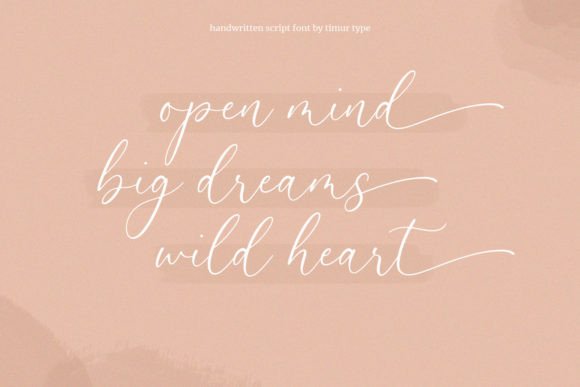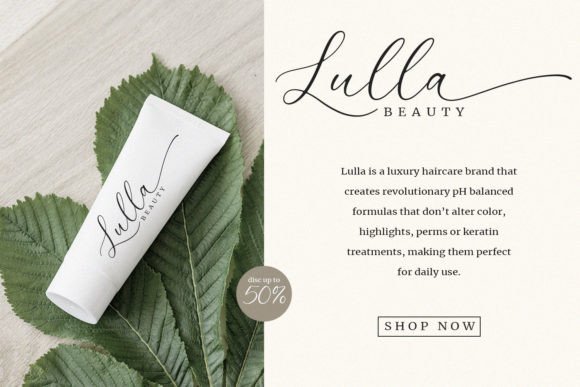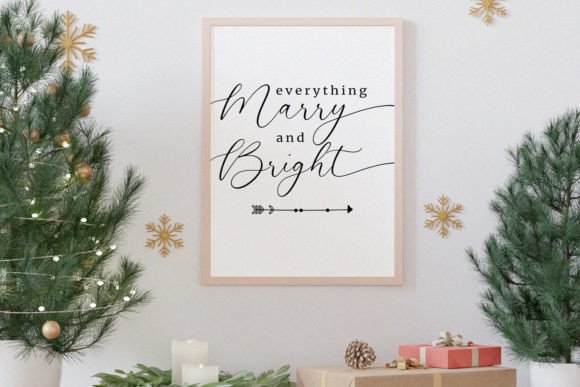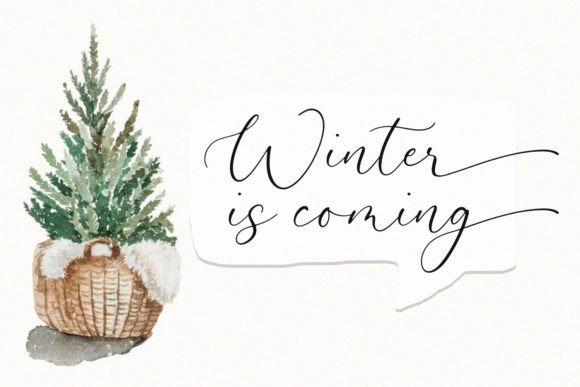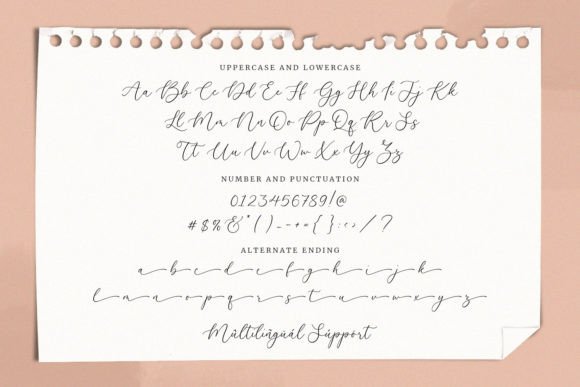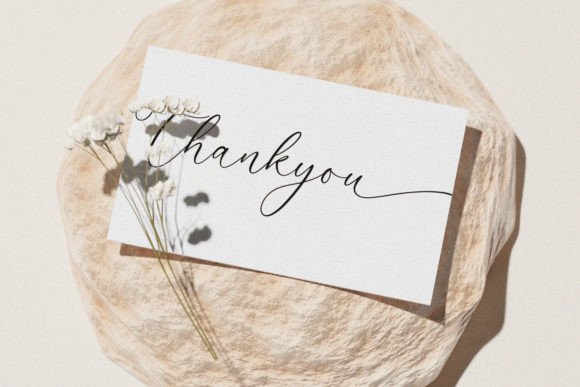
Auretta Font: Elevate Your Design with a Modern Handwritten Script
In the world of typography, fonts play a crucial role in conveying the tone and personality of a brand. For designers and crafters looking to add a touch of warmth and sophistication to their projects, Auretta Font is an excellent choice. This modern handwritten script font is designed to bring a fresh and inviting feel to your business, making it perfect for a wide range of applications.
The Charm of Auretta Font
Auretta Font boasts a unique, hand-crafted aesthetic that sets it apart from more traditional fonts. Its modern and fresh design makes it an ideal choice for businesses looking to establish a strong brand identity. With Auretta, you can add a personal touch to your products, packaging, and marketing materials, making them more relatable and engaging to your target audience.
One of the standout features of Auretta Font is its versatility. This font is perfect for a variety of design projects, including:
- Product Packaging: Add a touch of elegance and sophistication to your product packaging with Auretta Font. Whether you’re launching a new product or rebranding an existing one, this font is sure to make your packaging stand out.
- Branding Projects: Establish a strong brand identity with Auretta Font. Use it in your logos, business cards, and other marketing materials to create a cohesive and recognizable brand image.
- Magazines and Publications: Add a touch of warmth and personality to your magazine or publication with Auretta Font. Its modern design makes it perfect for headings, subheadings, and body text.
- Social Media: Elevate your social media presence with Auretta Font. Use it to create engaging graphics, posts, and stories that will help you connect with your audience.
- Weddings and Events: Make your wedding or event invitations, programs, and signage truly special with Auretta Font. Its elegant design is sure to impress your guests and create a lasting impression.
Why Choose Auretta Font?
With so many fonts available, why choose Auretta Font? Here are just a few reasons why designers and crafters love this modern handwritten script font:
- Unique Design: Auretta Font boasts a unique, hand-crafted design that sets it apart from more traditional fonts.
- Easy to Read: Despite its elegant design, Auretta Font is easy to read, making it perfect for body text and other applications where legibility is key.
- Highly Versatile: As mentioned earlier, Auretta Font is perfect for a wide range of design projects, from product packaging to social media graphics.
- Modern and Fresh: Auretta Font has a modern and fresh design that will help your business stand out in a crowded market.
Tips for Using Auretta Font
To get the most out of Auretta Font, here are a few tips to keep in mind:
- Use it as a Headline Font: Auretta Font is perfect for headlines and titles. Use it to add a touch of elegance and sophistication to your designs.
- Pair it with Other Fonts: Don’t be afraid to pair Auretta Font with other fonts to create a unique and visually appealing design.
- Experiment with Colors: Auretta Font looks great in a variety of colors. Experiment with different colors and combinations to find the one that works best for your design.
In conclusion, Auretta Font is a modern handwritten script font that is perfect for designers and crafters looking to add a touch of warmth and sophistication to their projects. With its unique design, versatility, and ease of use, Auretta Font is an excellent choice for a wide range of applications. Take advantage of this amazing font and experience the magic for yourself.